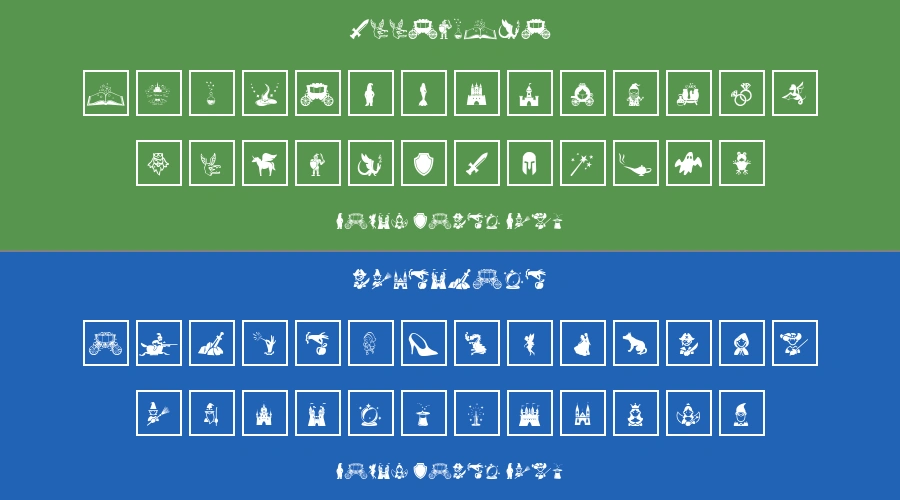
About Fairy Tales Font
When typographic excellence matters most, Fairy Tales Font delivers through its thoughtful blend of decorative alternates and generational appeal. Specially crafted for poster titles, it offers the impact and aesthetic refinement required for sophisticated design work. Every detail serves a purpose.
The character set showcases thoughtful details like elegant proportions alongside functional discretionary ligatures. This proves especially valuable in event graphics, where reliability directly influences results. Particular attention was paid to ear formation and cultural resonance during development.